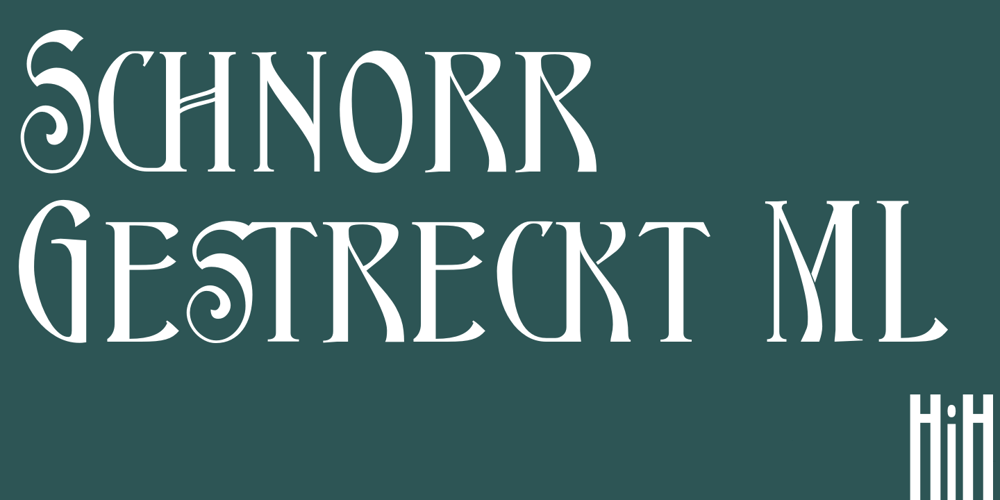
Schnorr Gestreckt
Schnorr Gestreckt Font Family was designed by Peter Schnorr and published by HiH. Schnorr Gestreckt contains 1 styles and family package options. Peter Schnorr was a German artist/illustrator of Art Nouveau period (called Jugendstil in Germany and Austria). He was quite adept at calligraphy and did a variety of commercial work, including business signs. He designed at least four different alphabets and collaborated with Bruce Rogers on advertising work and title page designs for books. One of their clients was the publishing house of Houghton Mifflin. I have not been able to discover anything else about him, but I suspect he might be the grandson of the Bavarian artist Jules Schnorr von Carolsfeld, who was once commissioned to do a mural by Ludwig II of Bavaria (whose famous castle was copied by Disneyland). Schnorr did not give individual names to his fonts. Where there is no historical name, we like to follow the tradition initiated by Bauer and name fonts after their designer, with a descriptive adjective in the designer’s native language. Gestreckt is German for stretched or elongated. An interesting deign detail of this typeface is the cross bar of the “T” –it is NOT symetrical. The right hand side extends only 88% as far as the left hand side (a ratio of 9:8). I presume this was done for a more pleasing letter fit. Today Schnorr’s design is frequently offered under the name “Ambrosia.” However. close inspection will usually reveal that the serifs have been treated differently. I believe our font has a greater fidelity to the original design. Please also compare the design of the various auxiliary characters to those in other fonts. Often they are either borrowed from an inappropriate font of a different period or are missing altogether. We make every effort to design characters that are in keeping with the overall design and spirit of the typeface. For example, see the superscript Registered Trademark symbol (0174) and the Double s (0223). I think both are quite successful. Schnorr Gestreckt ML represents a major extension of the original release. In addition to the standard 1252 Western Europe Code Page with character slots up to decimal position 255, there are glyphs for the 1250 Central Europe, the 1252 Turkish and the 1257 Baltic Code Pages. There are also two alternate letter forms, one ornament and seven ligatures with Unicode codepoints (Private Use Area) and OpenType aalt, ornm & liga GSUB layout features. There are a total of 318 glyphs and 351 kerning pairs. Please note that some older applications may only be able to access the Western Europe character set (approximately 221 glyphs). This release also incorporates a redesign of several glyphs: the comma, quotes, acute accent, and grave accent.